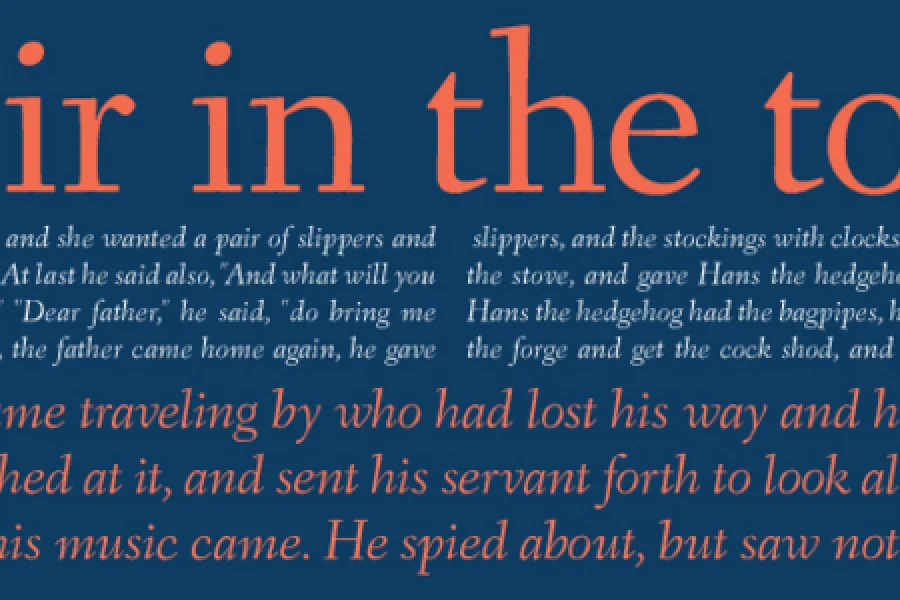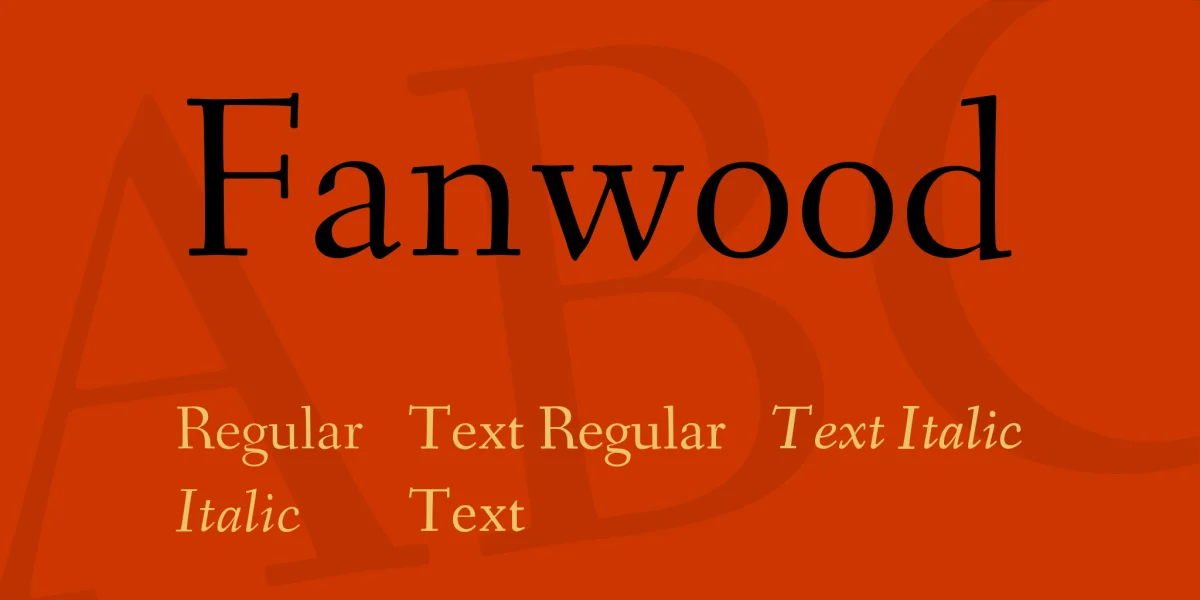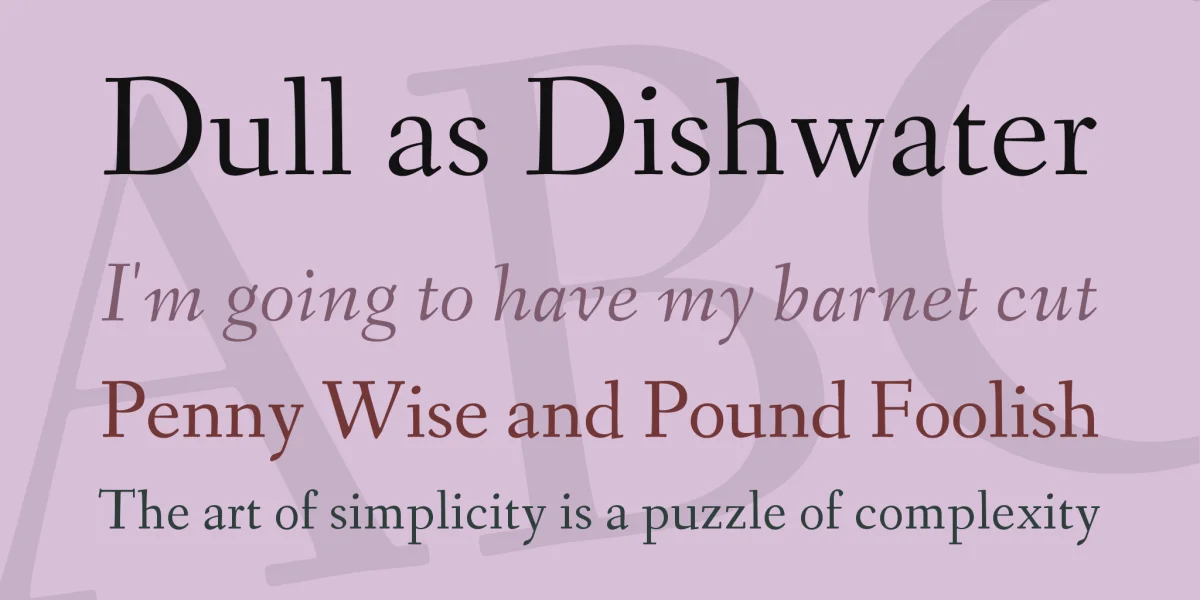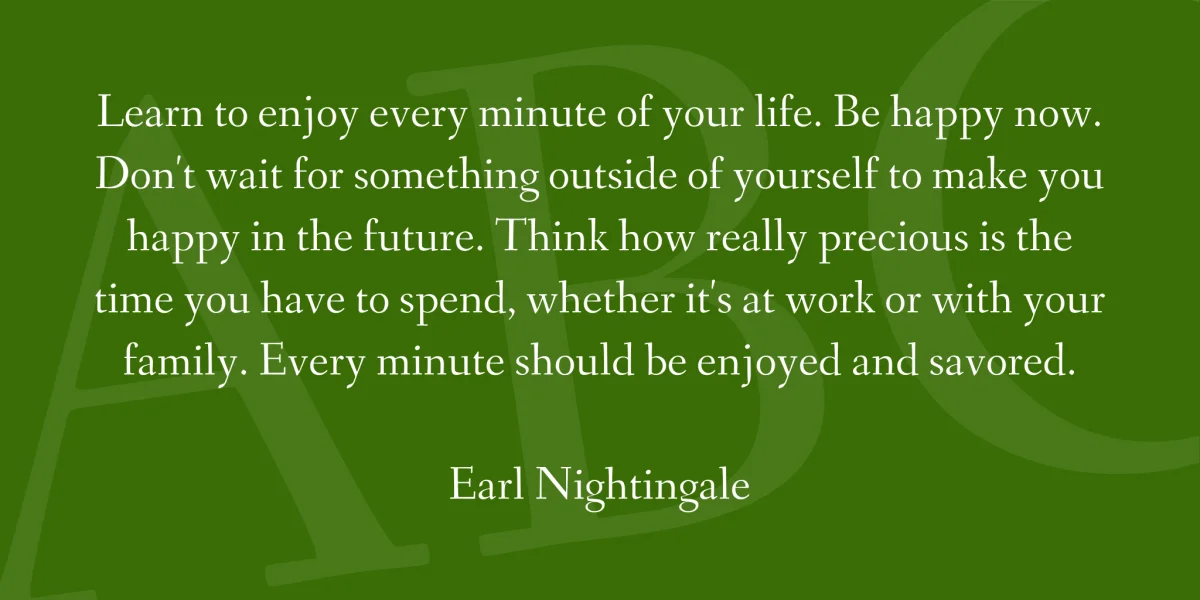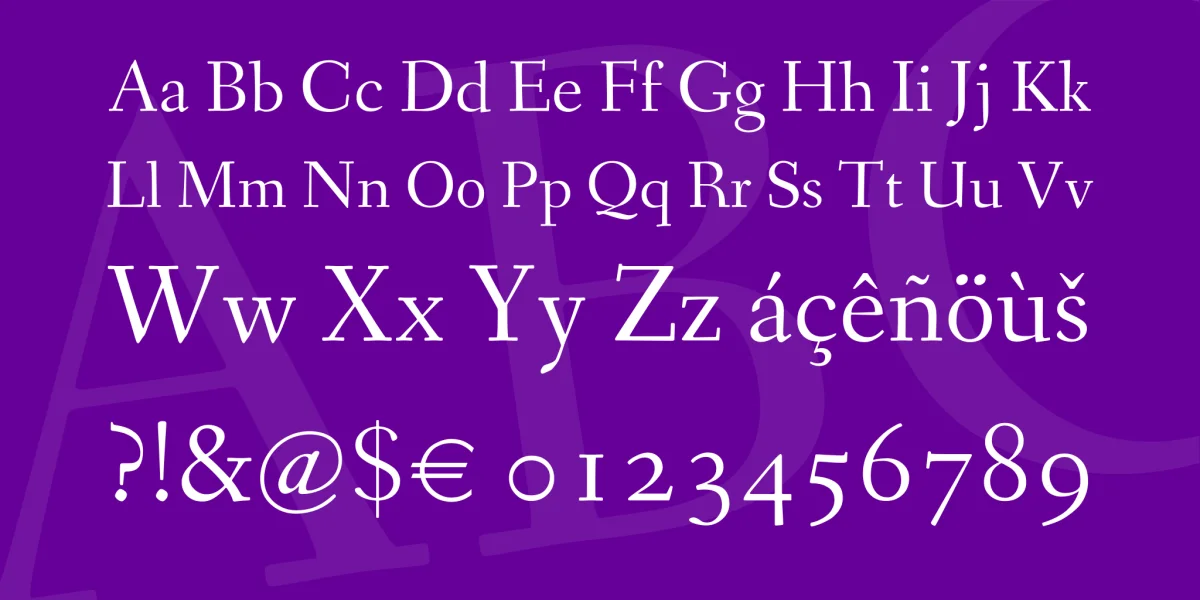
Based on work of a famous Czech-American type designer of yesteryear. The package includes roman and italic.
Fanwood Text roman and italic are the same as Fanwood but slightly darker and reduced in contrast; I tailored it to increase readability on my Amazon Kindle 3 e-book reader.